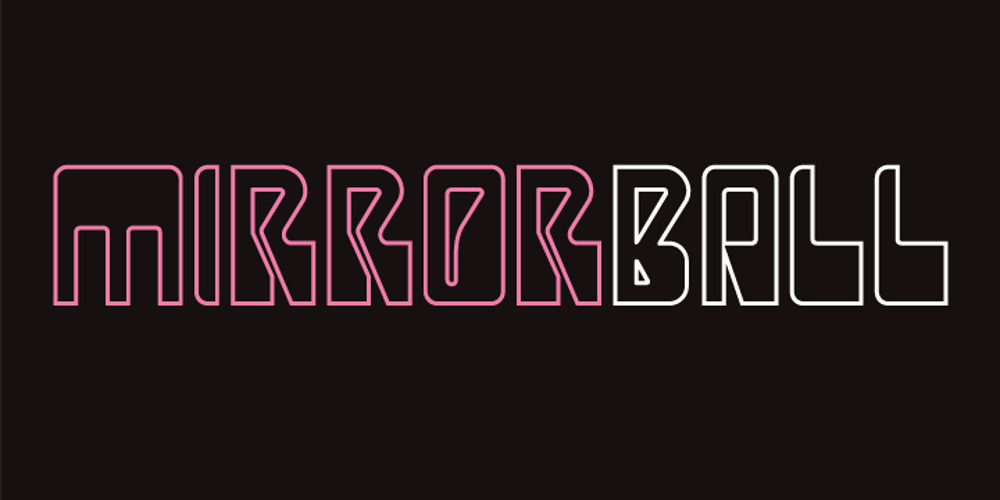
LaserDisco Font Family was designed by Jonathan Hill and published by The Northern Block. LaserDisco contains 6 styles and family package options. A futuristic styled font that takes influences from 1970s music and film. Examples include: David Bowie, T-Rex, Rollerball & Logan’s Run.